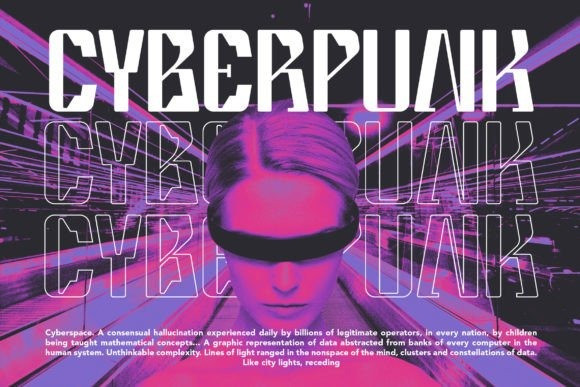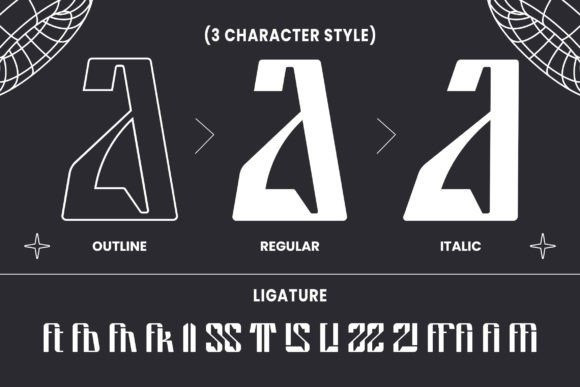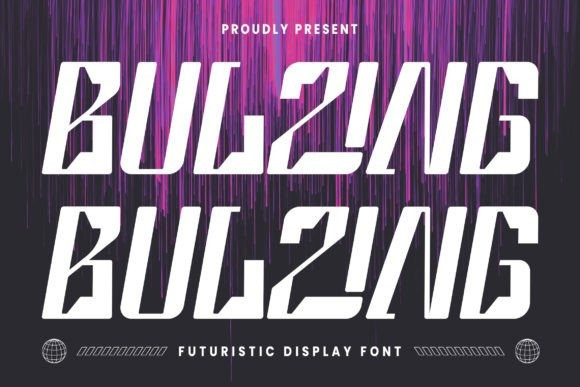
Bulzing Font
Bulzing Display Font is a display font that is the epitome of futuristic design, with its bold and dynamic letterforms that convey a sense of innovation and progress. Its sharp lines and geometric shapes make it an ideal choice for projects that demand a strong visual impact and a touch of cutting-edge style. This font is the future of design.